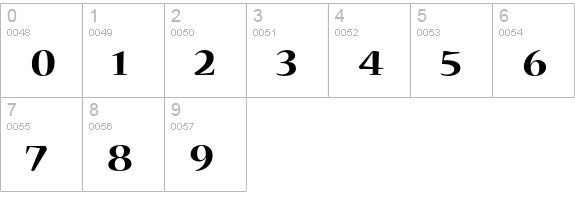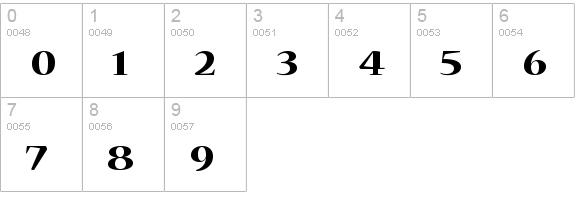
Nueva Std Bold Extended Font Details
Nueva Std Bold Extended is a strong, high-contrast, extended-width variant in the Nueva typeface family \xE2\x80\x94 well suited to headlines, attention-grabbing titles, and strong calls-to-action.
Nueva Std Bold Extended is a striking and modern typeface that exudes confidence and strength. With its bold and extended design, this font makes a bold statement while remaining highly legible. Perfect for headlines, posters, and any design project that requires a strong visual impact. And the best part? Nueva Std Bold Extended is available for free download at FontsMarket.com. This means you can easily access and use this powerful font in your projects without any cost. Don't miss out on this opportunity to elevate your designs with the impactful Nueva Std Bold Extended font.